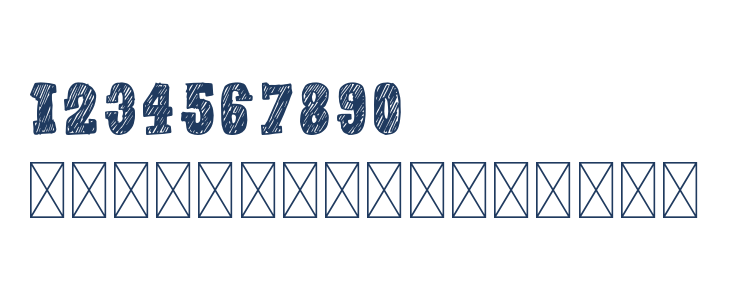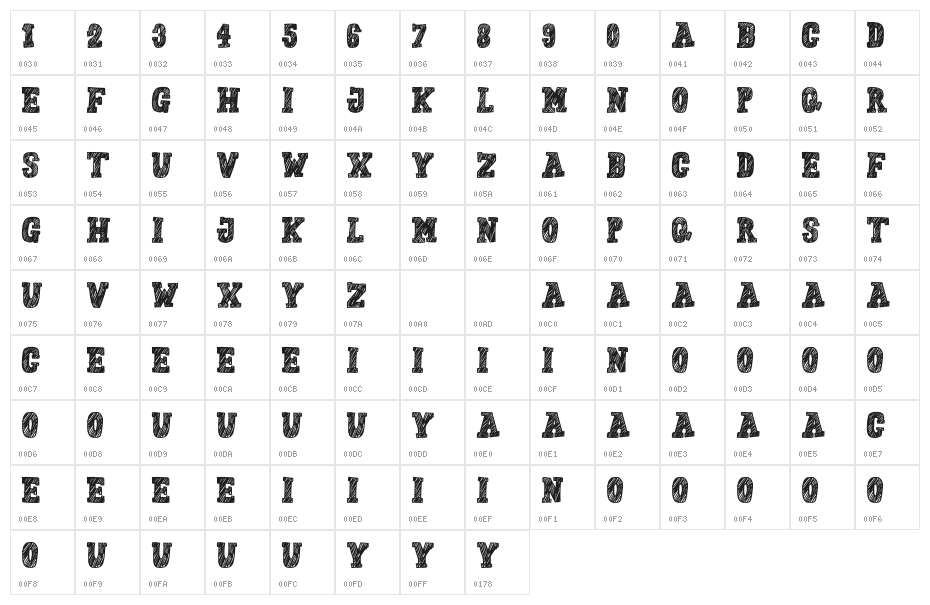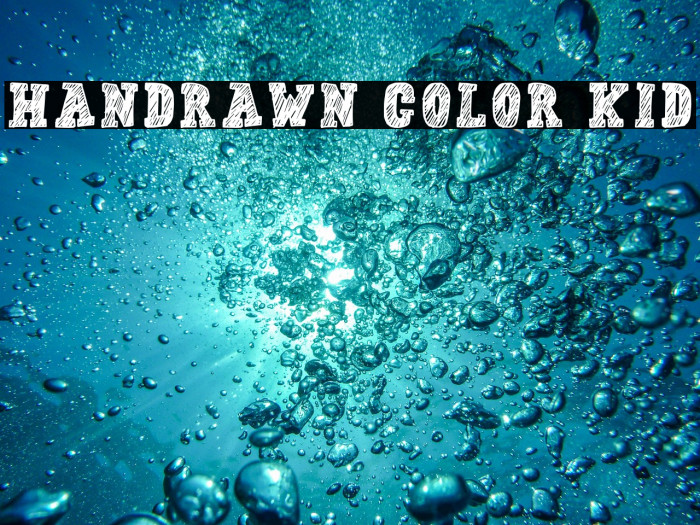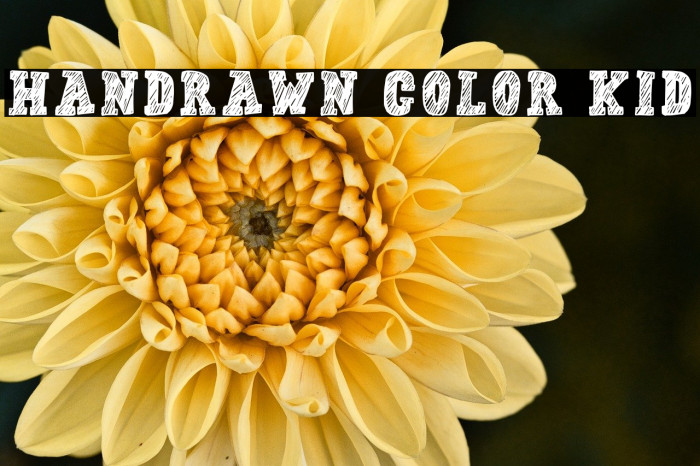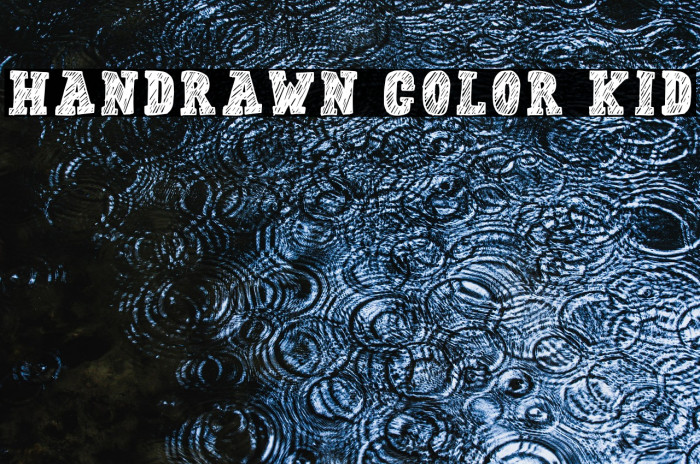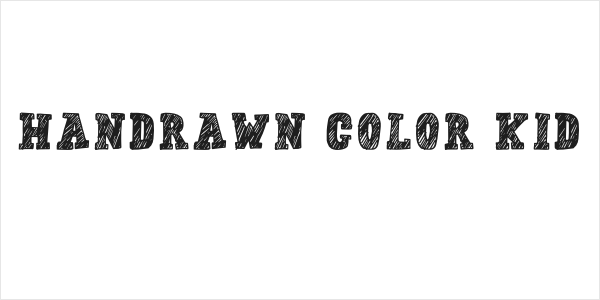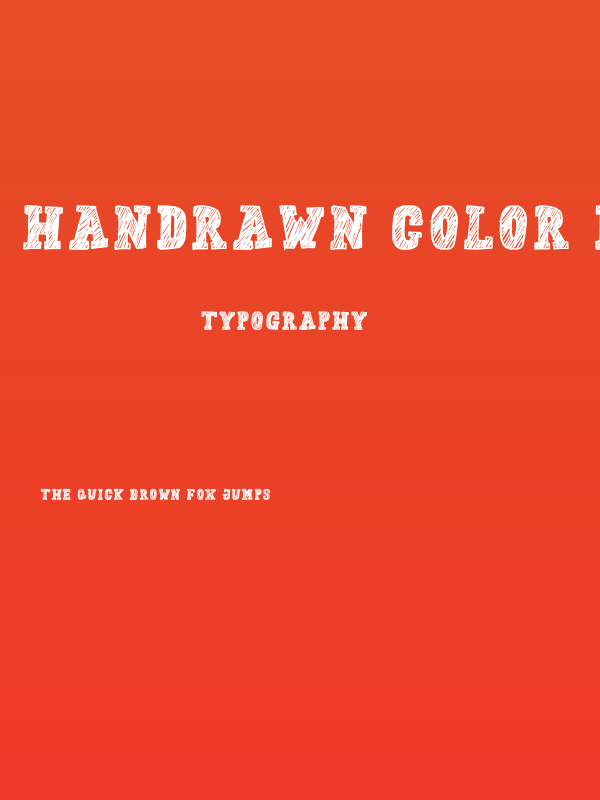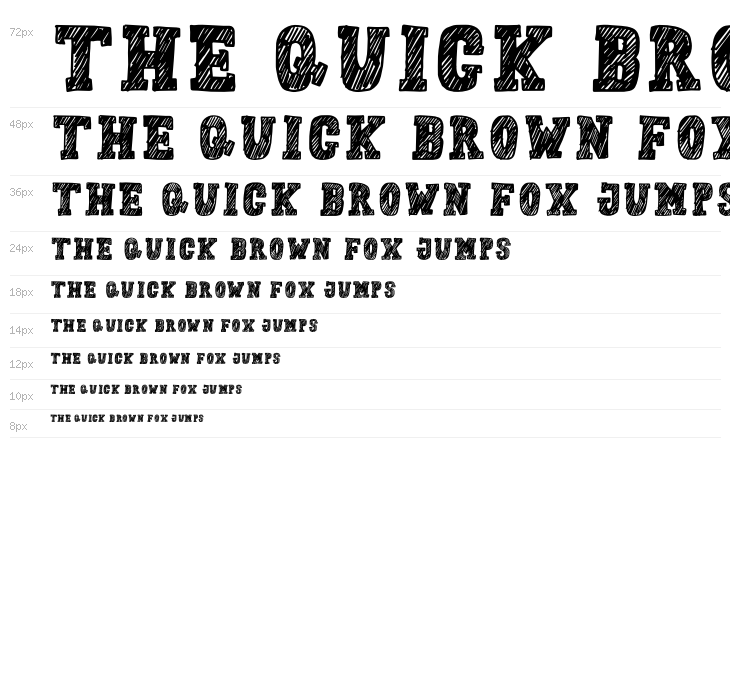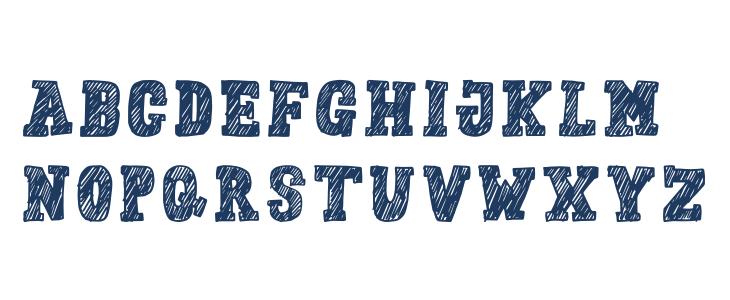
Handrawn Color Kid Font
Handrawn Color Kid Description
This font features a playful, hand-drawn style with a bold and chunky appearance. Each character is filled with a scribbled texture, giving it a dynamic and energetic feel. The letters are uppercase, with a consistent thickness that maintains readability while adding a whimsical touch. The numbers follow the same design, ensuring uniformity across the typeface. This font is ideal for projects that require a fun and informal aesthetic, such as children's books, posters, or creative branding. Its unique texture and bold presence make it stand out, capturing attention with its lively and artistic vibe.
| Overall Style | Playful, Artistic |
| Use Case | Headlines, Posters, Creative Branding |
| Proposed Projects | Children's books, playful posters, creative branding, informal invitations. |